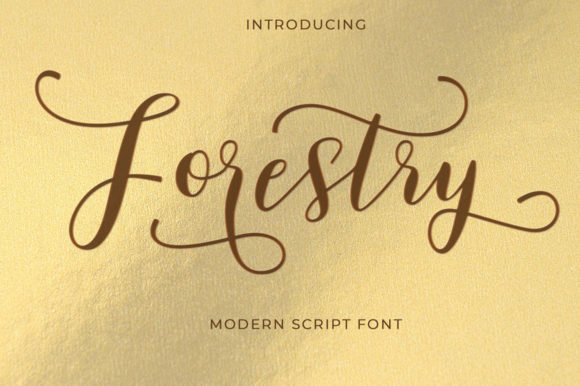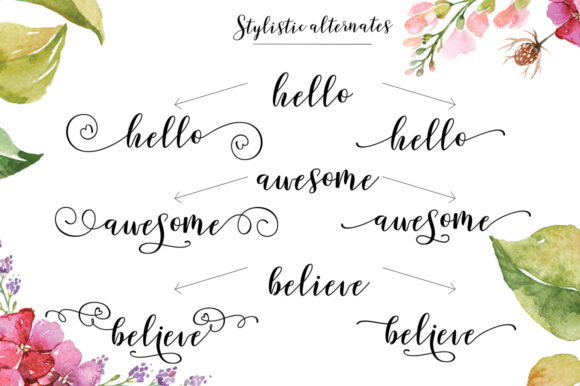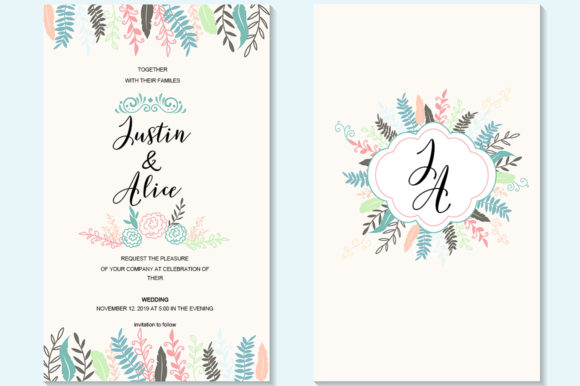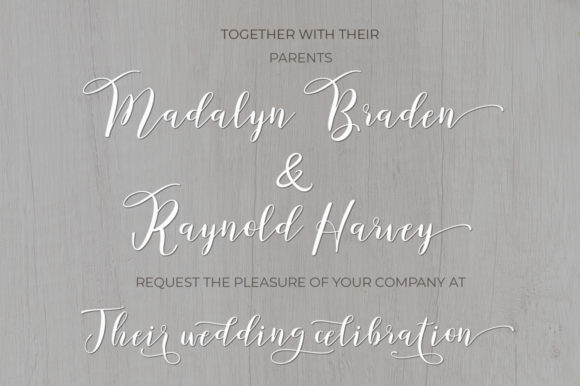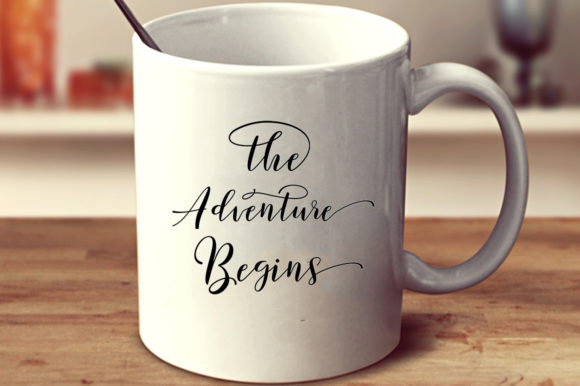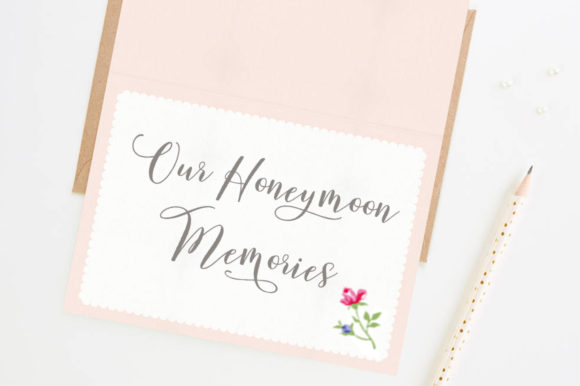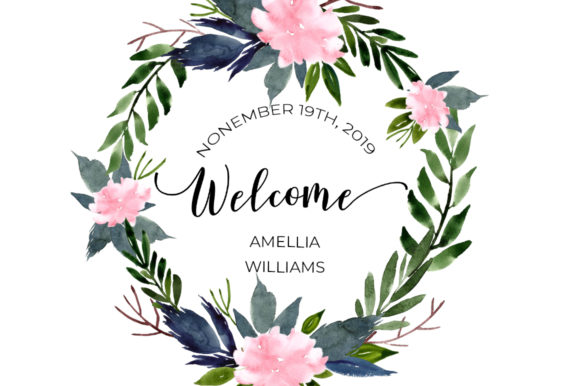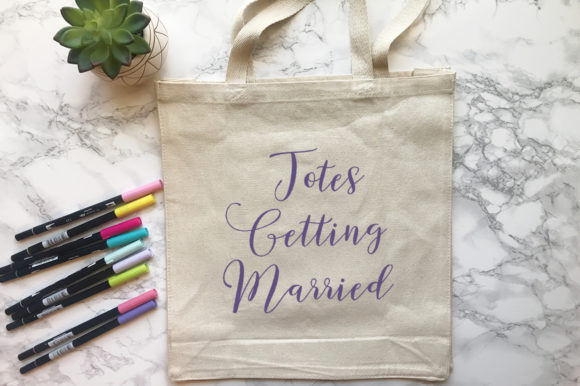
HomeScript FontsForestry Font Script Fonts Forestry Font FacebookXPinterestWhatsApp Forestry Font Poster 2 Forestry Font Poster 3 Forestry Font Poster 4 Forestry Font Poster 5 Forestry Font Poster 6 Forestry Font Poster 7 Forestry Font Poster 8 About Forestry Font Forestry is a naturally beautiful and cool script font with amazing swashes, making it an ideal crafting font! DOWNLOAD ON CREATIVE FABRICAThis font is sold and delivered by Creative Fabrica. Font Canyon may earn a commission if you buy through this link. People also explored Thanksgiving Font Apple Cider Font Lovely Belive Font Helena Girl Font Cloven Font Dustyland Script Font Portraits – Signature font Forever Darling School Football Font 365 0 TagsForestry Font Previous articleMorning Mood FontNext articleGilliant Font LEAVE A REPLY Cancel reply Comment: Please enter your comment! Name:* Please enter your name here Email:* You have entered an incorrect email address! Please enter your email address here Website: Save my name, email, and website in this browser for the next time I comment. Personal Use Free Saolice Personal Use Free Read more about this font Blessed Font Personal Use Free Read more about this font Capellen Personal Use Free Read more about this font Planning Personal Use Free Read more about this font BLOG Free Fonts Risk: Why Free Fonts Can Be Dangerous for Designers Free Fonts Risk: Why Free Fonts Can Be Dangerous for Designers Using free fonts is a common practice in web and graphic design. However, the... Best Fonts for YouTube Videos: Make Your Thumbnails Stand Out The 10 Best Handwriting Fonts to Add Personality to Your Designs To increase your work productivity, choose the most readable fonts.